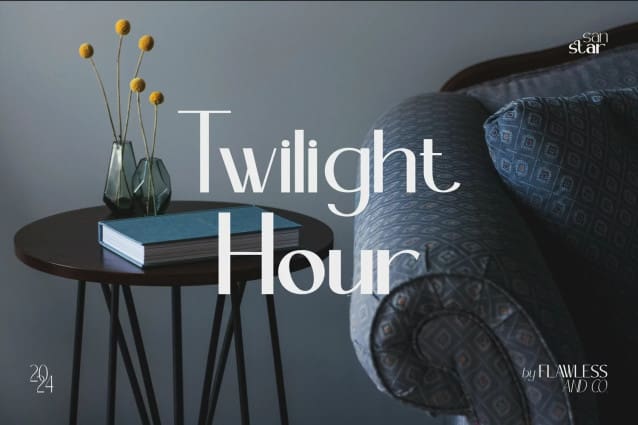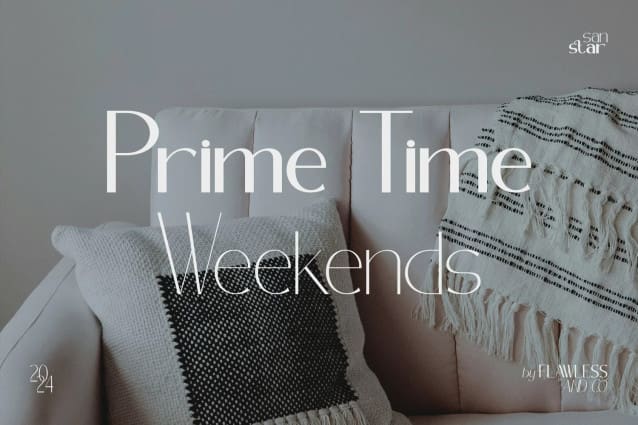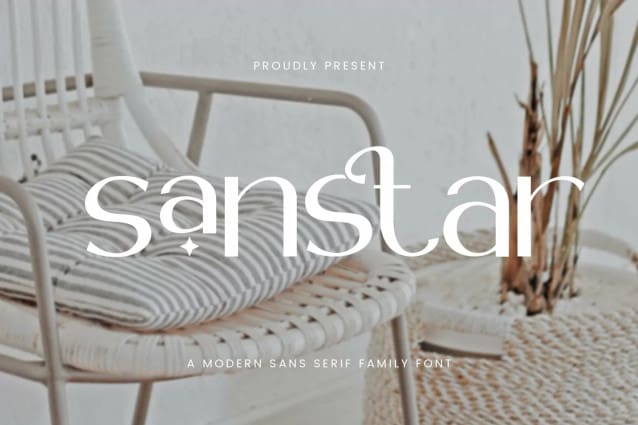
Sanstar Font
Sanstar Font, an elegant sans serif font family that exudes sophistication and style. With its clean lines, geometric shapes, and subtle stroke variations, Sanstar is perfect for creating a modern and refined look for your branding, web design, and editorial projects. Sanstar Font consists of various weights ranging from thin to bold styles, including thin, extra light, light, regular, medium, semi-bold, and bold.
There’s some connected letters and some alternates that suitable for any graphic designs such as branding materials, t-shirt, print, business cards, logo, poster, t-shirt, photography, quotes .etc
This font support for some multilingual. Also contains uppercase A-Z and lowercase a-z, alternate character, numbers 0-9, and some punctuation.